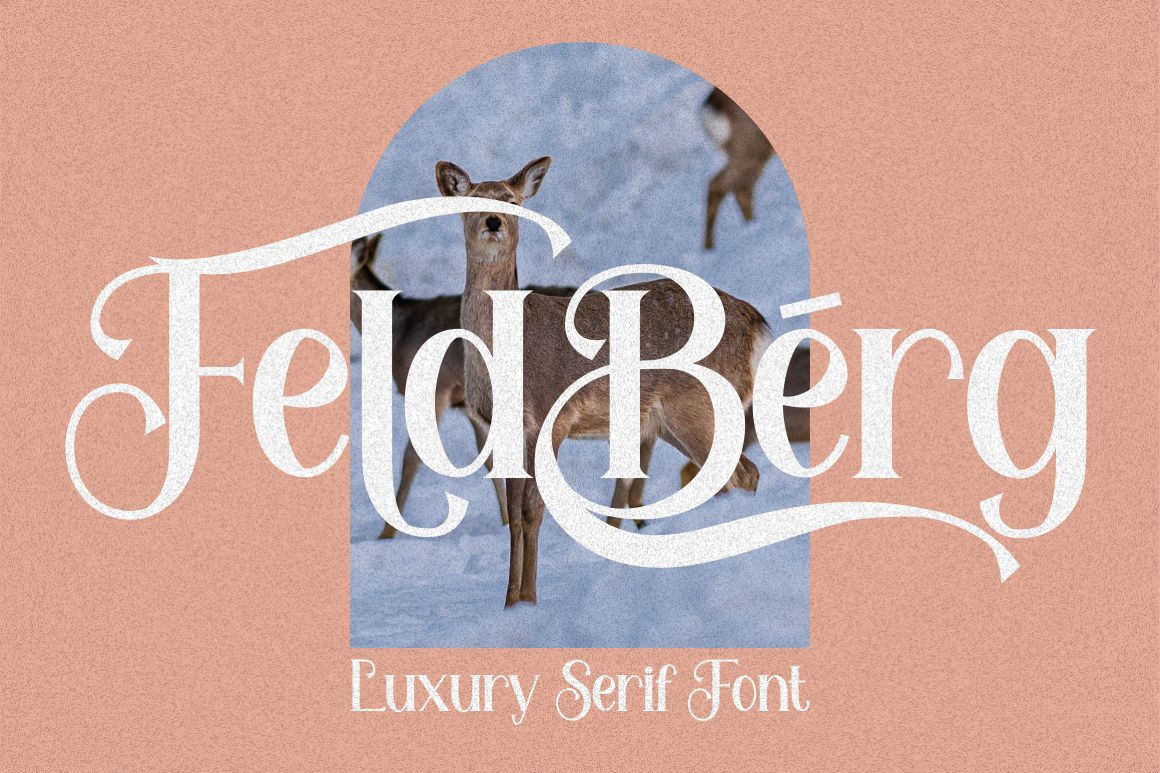
Your brand’s font is more than just typography—it’s the voice and personality of your business. Whether you’re designing a logo, a business card, or a social media post, the right font can make your brand instantly recognizable and trustworthy.
In this blog post, we’ll explore 15 of the best fonts for branding in 2025. From modern sans-serifs to handwritten elegance, these fonts are handpicked to enhance your visual identity across platforms.
💡 Why Font Choice Matters in Branding
Choosing the right font can:
• Influence how your brand is perceived (professional, playful, luxury, etc.)
• Ensure consistency across all brand materials
• Strengthen brand recognition
• Improve readability and engagement
Let’s dive into the font list that can help you achieve all that—and more.
🔠 1. Feldberg – Elegant Serif Font
Feldberg is a high-contrast serif font with a modern edge. It exudes luxury and professionalism, making it perfect for fashion brands, editorial logos, and premium services.
Best for: Logo design, fashion branding, magazine headers.
Best for: Urban fashion, athletic brands, motivational merchandise.
🔠 9. Romantic Embrace – Signature Script Font
By: PutraCetol Studio
This font adds elegance and fluidity to any design. Its stylish curves are perfect for luxury branding or upscale personal businesses.
Best for: Wedding branding, signature logos, lifestyle blogs.
🔠 10. The Retro And Vintage Font Bundle